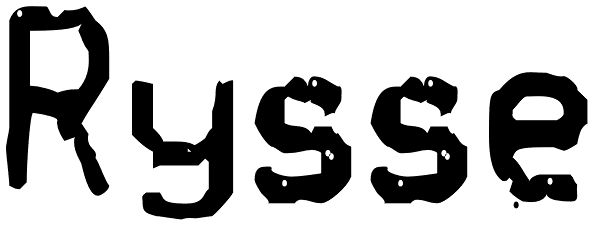
Rysse
Rysse is a primitive art-college grunge font, completely legible but quite unsophisticated. Unashamedly. The typeface comes in two main styles: one a standard hi-case lo-case version & the other an all caps version. There's also three versions which...